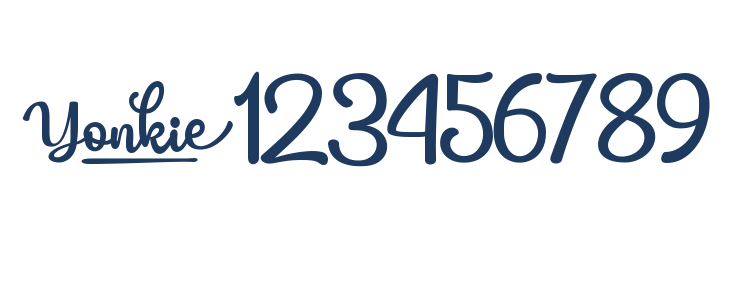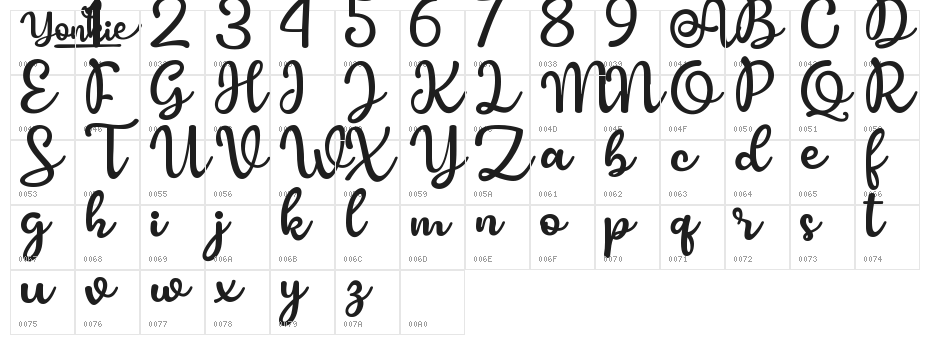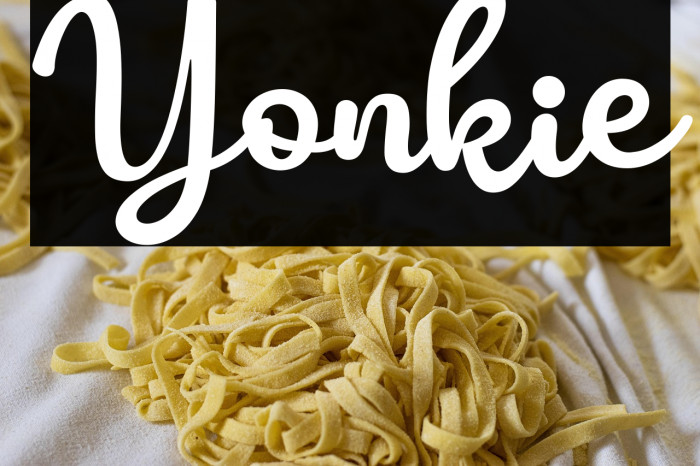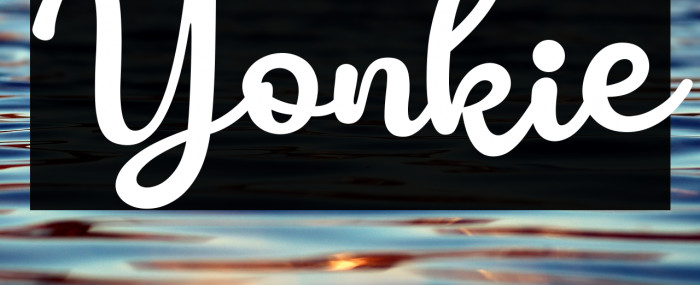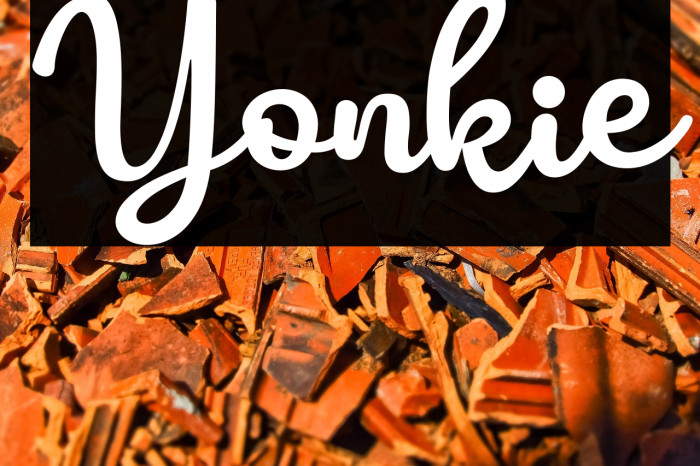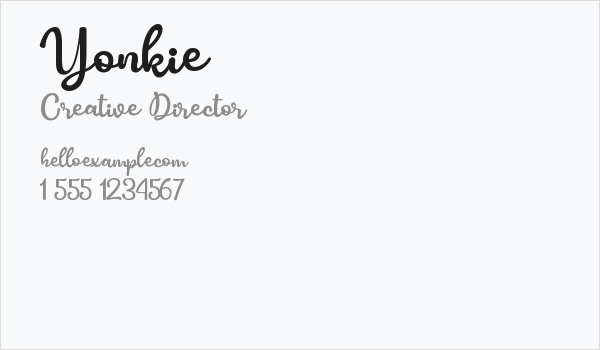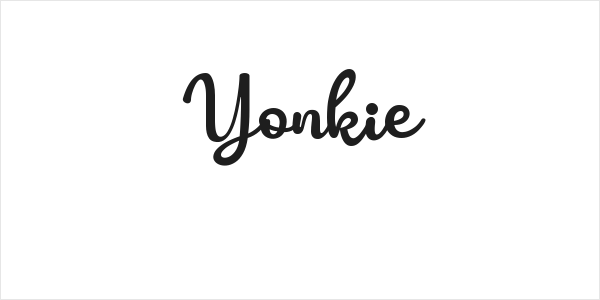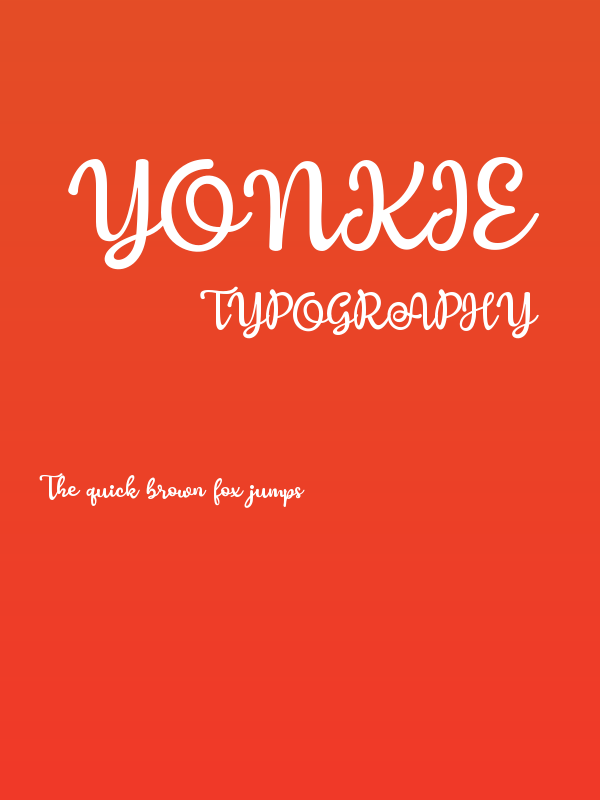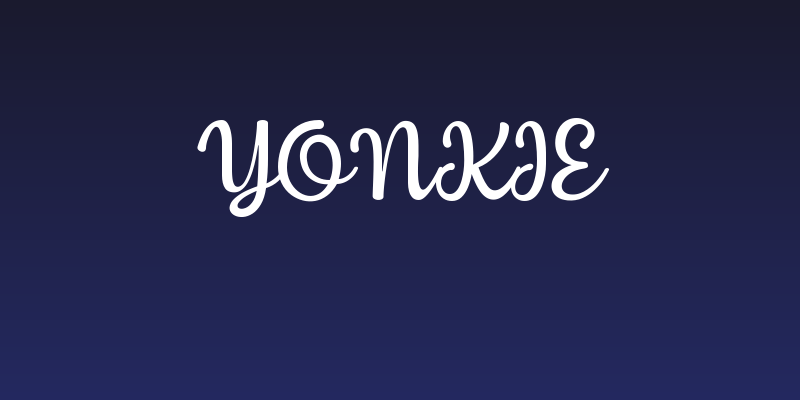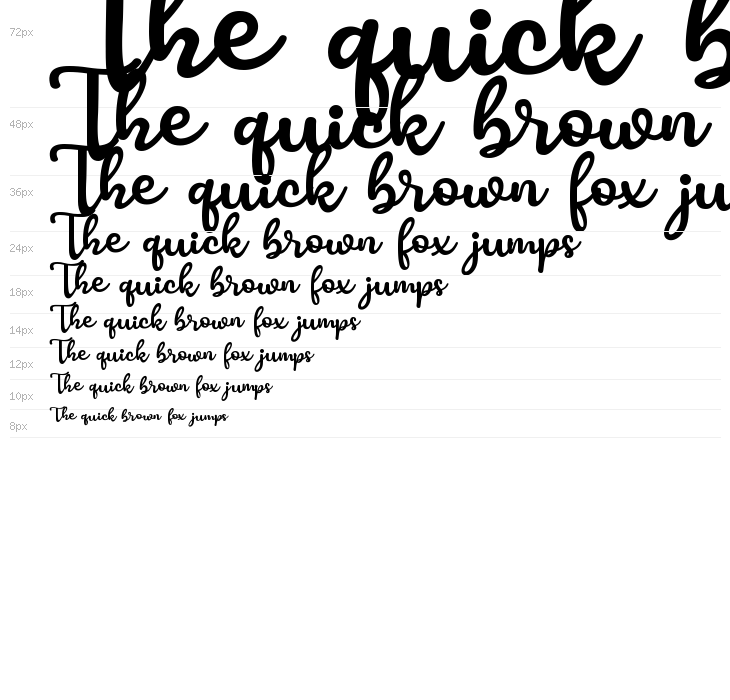
Yonkie Font
Yonkie Description
This font features a playful and flowing script style, characterized by its smooth, rounded strokes and elegant curves. The uppercase letters are bold and prominent, with a whimsical flair that adds a touch of personality. The lowercase letters maintain a consistent flow, creating a harmonious and connected appearance. Numbers are clear and easy to read, while special characters blend seamlessly with the overall design. This font exudes a sense of creativity and warmth, making it ideal for projects that require a personal touch.
| Proposed Projects | Ideal for greeting cards, invitations, branding, and creative projects that require a personal and artistic touch. |